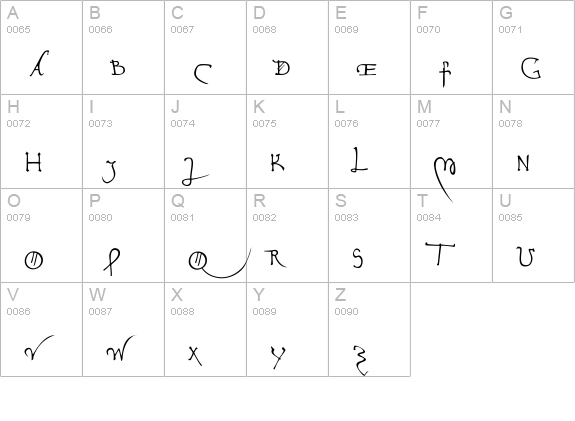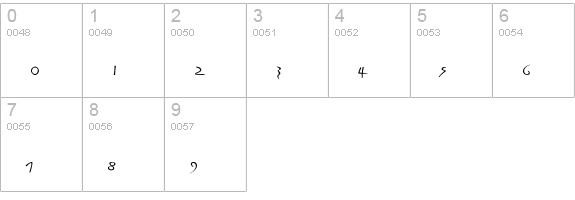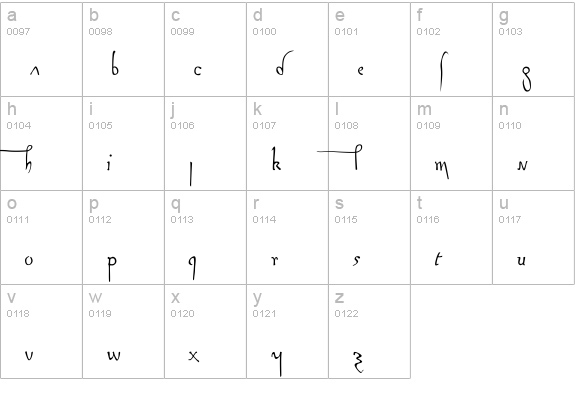
LeonardoHand Font Details
LeonardoHand font is a unique and artistic typeface that effortlessly captures the essence of hand-drawn lettering. Every stroke and curve of this font exudes a sense of creativity and craftsmanship, making it the perfect choice for any design project that craves a touch of originality. Designed with meticulous attention to detail, LeonardoHand font offers a wide range of characters, including uppercase letters, lowercase letters, numerals, punctuation marks, and special symbols. Its versatile nature allows it to be used for various purposes, such as branding, logos, packaging, posters, invitations, and more. What sets LeonardoHand font apart is not just its stunning aesthetics, but also the fact that it is available for free. Yes, you read that right! This font can be freely downloaded at FontsMarket.com, ensuring accessibility to designers, artists, and enthusiasts alike. Whether you are a seasoned designer looking to add a new dimension to your creations or a beginner seeking to experiment with different styles, LeonardoHand font is the perfect companion. Its smooth lines and organic feel will bring a sense of warmth and authenticity to your designs, making them stand out in the crowd. So why wait? Unleash your creativity and download LeonardoHand font today. It's time to let your imagination soar and create something truly remarkable with this exceptional font that is freely available at FontsMarket.com.